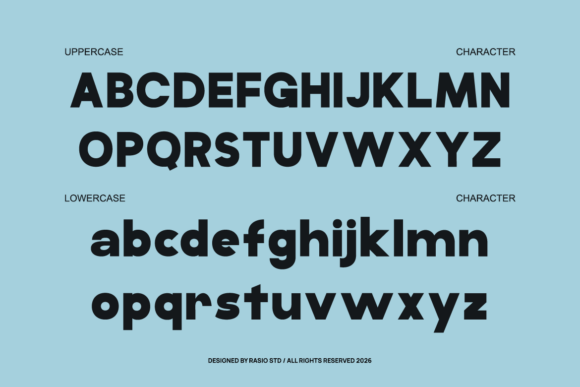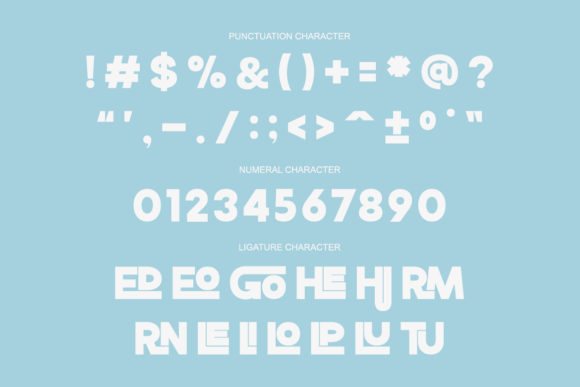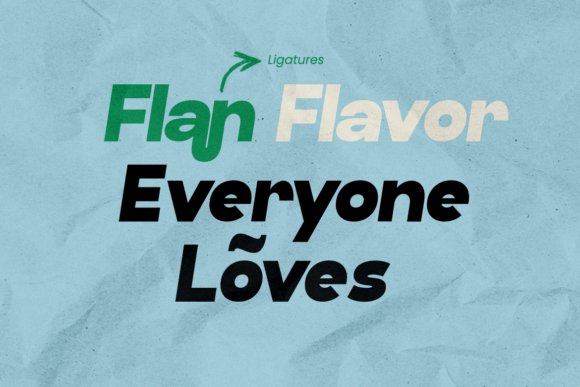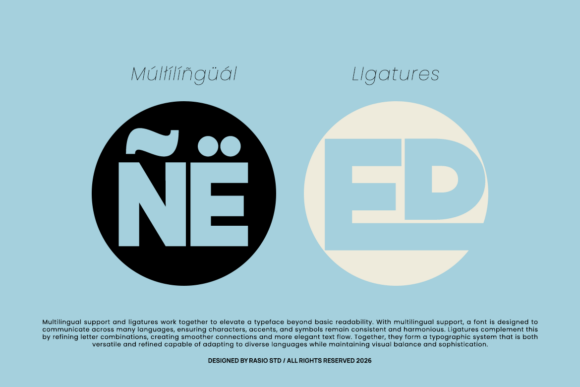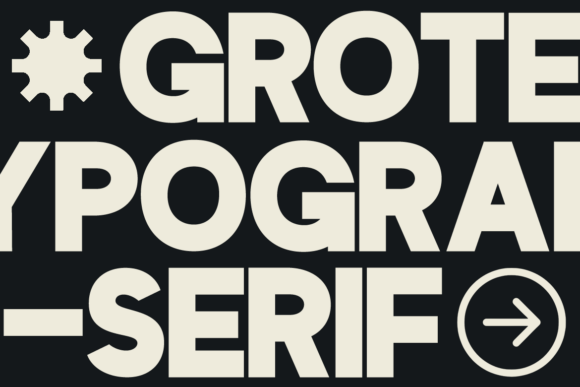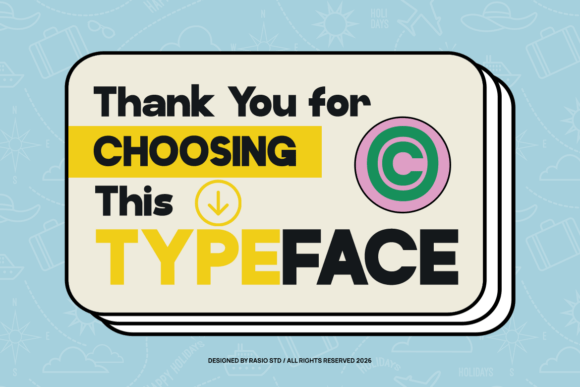
Gorion Font: Elevate Your Design with Modern Grotesk Elegance
In the realm of typography, a font can make or break the visual identity of a design project. For those seeking a modern, confident, and versatile typeface, Gorion Font emerges as an exceptional choice. Designed with a keen eye for geometric balance and clean contemporary proportions, Gorion is a grotesk sans serif font that brings a fresh perspective to the world of graphic design.
The Essence of Gorion Font
Gorion’s design is rooted in strong geometric principles, offering a bold and structured aesthetic that commands attention. Its letterforms are characterized by bold strokes, smooth curves, and a meticulous vertical rhythm. This thoughtful design ensures that Gorion exudes a confident and modern typographic presence, making it an ideal fit for a wide array of applications.
Versatility at Its Core
One of the standout features of Gorion Font is its incredible versatility. It is perfectly suited for:
- Modern branding systems
- Corporate identity design
- Editorial layouts
- Website typography
- UI/UX design
- Posters
- Packaging
- Advertising campaigns
- Contemporary graphic design projects
This adaptability stems from its bold grotesk structure, which provides strong visual clarity. Whether the project demands a professional tone or a creative flair, Gorion Font rises to the occasion, delivering effectively in both realms.
Designing with Gorion
For designers and crafters, the allure of Gorion lies not just in its aesthetic appeal but also in its functionality. When used in modern branding systems, Gorion can help establish a strong and contemporary visual identity. Its clean lines and geometric balance make it an excellent choice for corporate identity design, where clarity and professionalism are paramount.
In editorial layouts and website typography, Gorion’s structured vertical rhythm and smooth curves enhance readability, ensuring that content is not only visually appealing but also easily digestible. For UI/UX design, the font’s bold strokes and confident presence guide users through digital interfaces with ease and sophistication.
Crafting with Gorion
Crafters and designers looking to make a statement with posters, packaging, or advertising campaigns will find Gorion to be a valuable asset. Its modern grotesk aesthetic cuts through visual clutter, capturing attention and conveying messages with impact. Moreover, Gorion’s versatility means it can be adapted across various design projects, providing a consistent visual thread that strengthens brand recognition.
Why Choose Gorion Font?
The decision to use Gorion Font in a design project can be attributed to several key benefits:
- Modern Aesthetic: Gorion brings a fresh, contemporary look that elevates design projects.
- Versatility: Suitable for a wide range of applications, from professional to creative.
- Legibility: Excellent readability across various mediums.
- Geometric Balance: Provides a structured and clean visual presence.
Gorion Font stands out in the world of typography as a beacon of modernity and versatility. Its design, rooted in strong geometric principles and clean proportions, offers a confident and contemporary aesthetic perfect for a myriad of design applications. Whether you’re a designer aiming to craft a compelling brand identity, a UI/UX professional seeking clarity and impact, or a crafter looking to elevate your projects, Gorion Font is an exceptional choice. Embrace Gorion in your next design venture and experience the power of modern grotesk elegance.